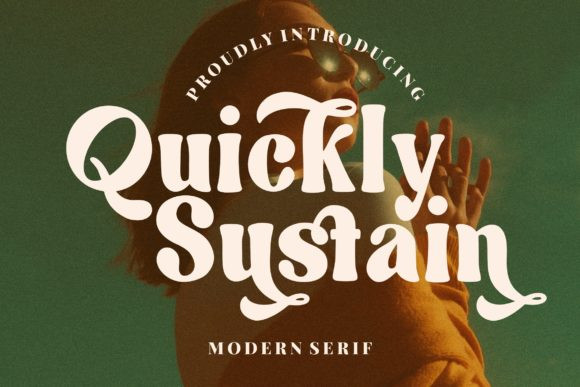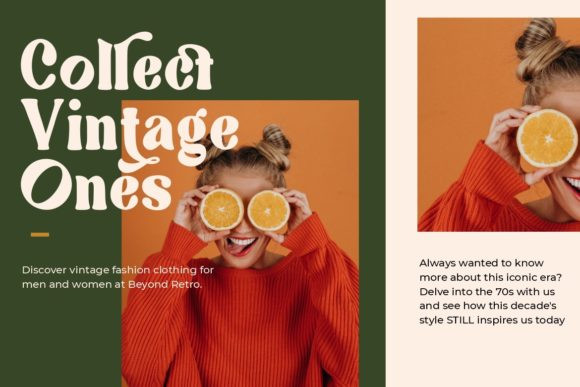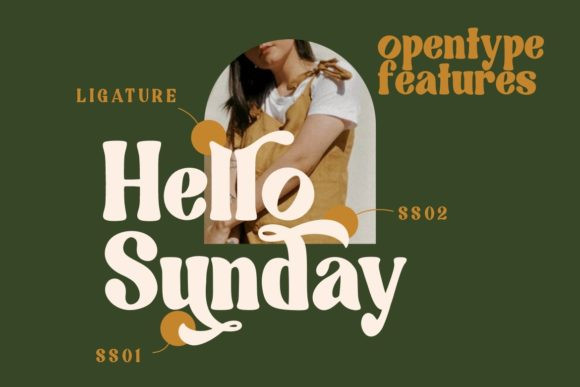
Quickly Sustain Font
Quickly Sustain is a cool and vintage styled serif font. It has a classy, elegant and modern look that can be used for logos, branding, invitations, stationery, wedding designs, social media posts, and much more!